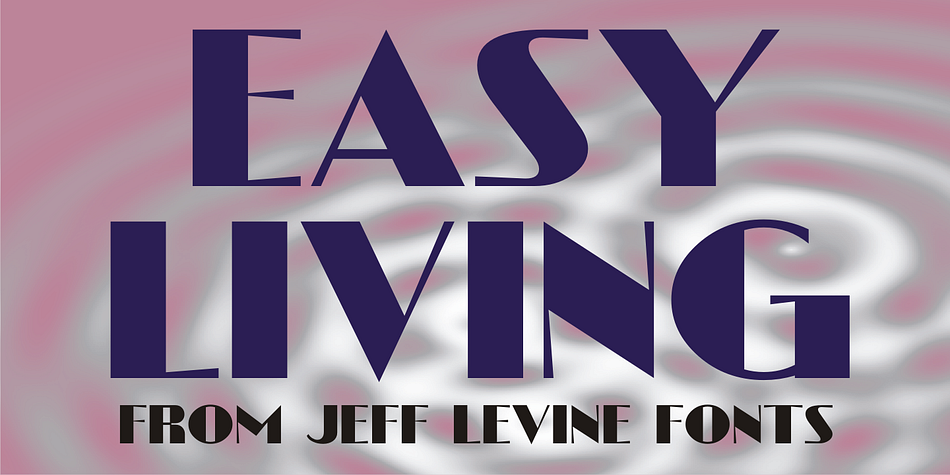
Easy Living JNL is a art deco font published by Jeff Levine Fonts.
Easy Living JNL is a bold Art Deco type face modeled from the name of a 1930s magazine entitled “Country Living”.